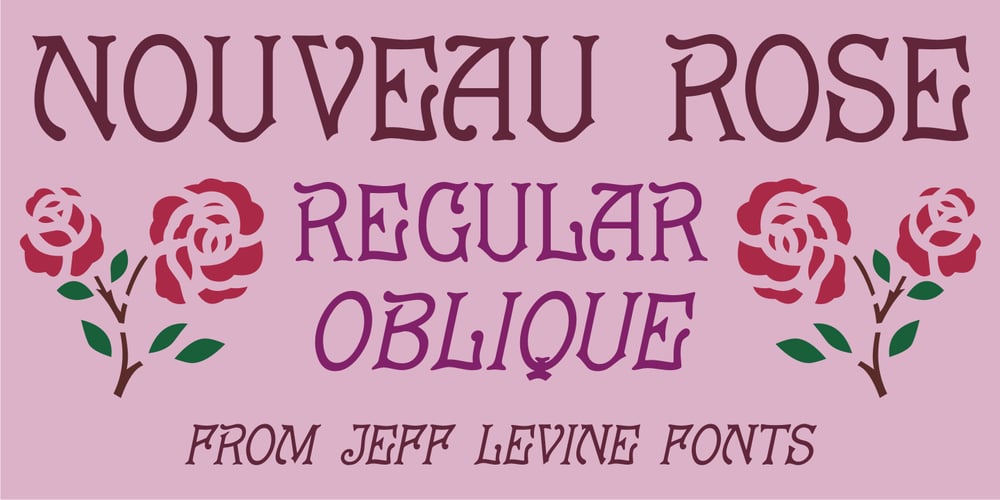
Nouveau Rose Font Family was designed by Jeff Levine and published by Jeff Levine. Nouveau Rose contains 2 styles and family package options. In the July 24, 1915 issue of “Dry Goods Reporter” is a demonstration of hand lettering rendered with the use of a “speed pen”. Two suggested examples cited in the accompanying article were the Payzant pen and the then-new Speedball pen. An ornate Art Nouveau serif alphabet is displayed, with some examples having delicate floral elements entwining the letters. The initial alphabet was auto-traced, then cleaned-up and modified to recreate the core design of the basic (unadorned) letters. The numerals, punctuation and all additional characters were then made from scratch. Nouveau Rose JNL is the finished result, and is available in both regular and oblique versions.